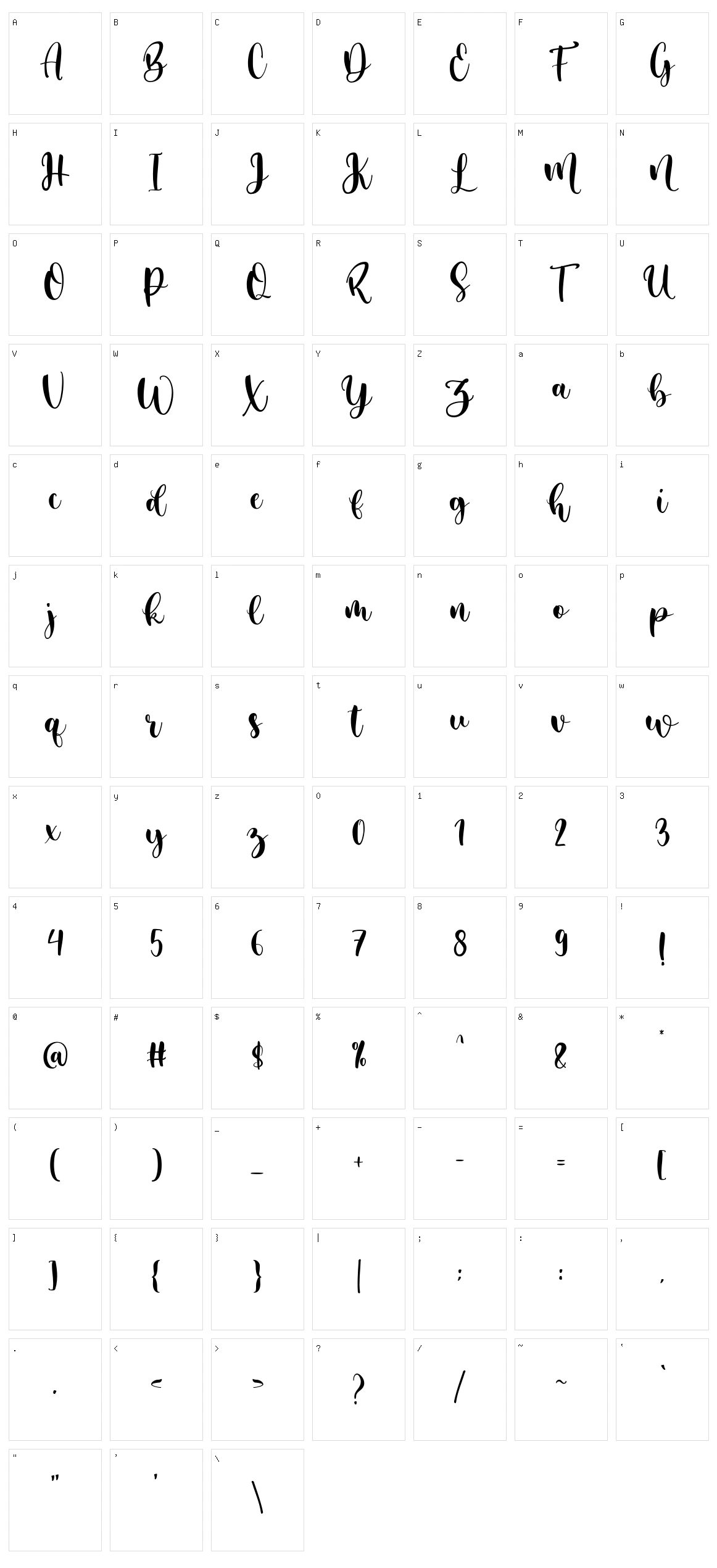
The free font Desmonthe is carefully designed by Benditos Creative, showcasing a thoughtful balance of creativity and usability and falls under the Script font style. When you download the ZIP file, it contains only 135.79 KB of font files, making it lightweight and quick to download. Please review the license details below to understand permitted usage and distribution rights. If license information is not available, we recommend using this font for personal projects only or contacting the author directly for commercial usage permissions.